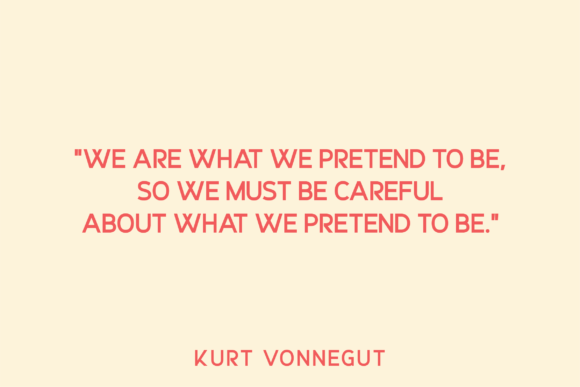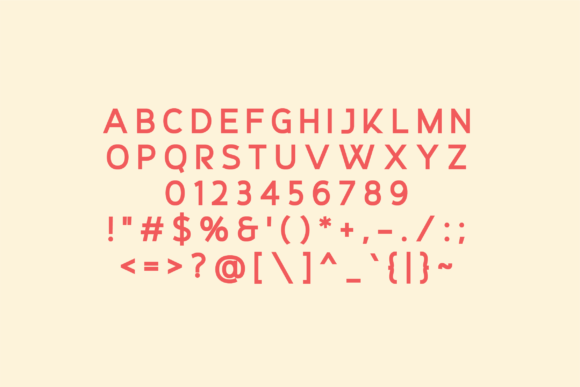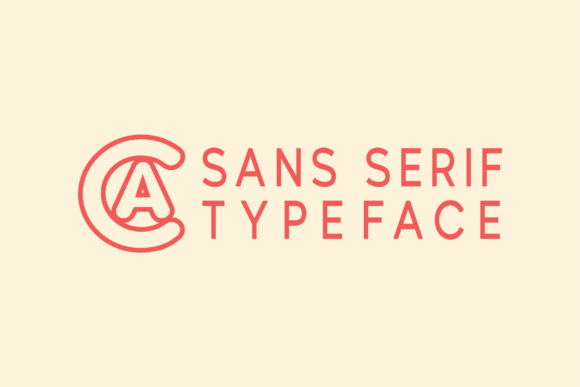
Introduction to Relevance Font
Have you ever found yourself staring at a blank page, trying to bring your creative idea to life? The perfect font can be the missing piece that takes your design from ordinary to extraordinary. For designers, the quest for the ideal font is a never-ending journey, and that’s where the Relevance Font comes in – a high-quality design resource that’s about to revolutionize the way you approach your creative projects.
As a versatile, modern, and classy sans serif font, Relevance Font is perfect for a wide range of applications, from logos and weddings to invitations and advertisements. With its transparent background, you can add it to your designs and watch how it elevates your work to the next level. And the best part? It’s available for free download, making it an invaluable resource for designers of all levels.
Key Features of Relevance Font
- High-quality, professional design for creative projects and presentations.
- Part of a comprehensive font family, offering a range of styles and weights to suit various design needs.
- Designed to be highly legible and versatile, making it suitable for both print and digital applications.
Honest Review: Relevance Font
I recently stumbled upon the Relevance Font, and I’m excited to share my thoughts with you. As a designer, I’m always on the lookout for high-quality design resources to elevate my creative projects.
- ✨ The font’s transparent background makes it incredibly versatile and easy to use on a variety of backgrounds.
- ✨ The font’s modern and sleek design makes it perfect for a wide range of creative projects, from business cards to websites.
- ⚠️ The font may not be suitable for projects that require a more traditional or classic look.
Overall, I’m impressed with the Relevance Font. It’s a high-quality design resource that’s perfect for designers looking to add a modern touch to their creative projects. While it may have some limitations, I believe the benefits far outweigh the drawbacks.
Tips for Getting the Most Out of Relevance Font
Experiment with different font sizes and styles to create a unique design. Use the font in combination with other design elements to create a visually appealing design. Don’t forget to adjust the font color and background to ensure maximum visibility.
Relevance Font is ideal for designing high-quality documents, presentations, and creative projects that require a touch of sophistication. Use the font for business reports, marketing materials, or personal projects that require a professional touch.
Alternatives to Relevance Font
Open Sans is a popular, high-quality sans-serif font suitable for a wide range of design projects. It features a clean and modern design, making it an ideal choice for digital interfaces and creative projects.
Use Open Sans when you need a versatile and highly legible font for your design. Compared to Relevance Font, Open Sans offers a more neutral aesthetic, but its wide range of weights and styles make it highly adaptable.
Alegreya
Alegreya is a high-quality serif font that exudes elegance and sophistication. Its unique design makes it perfect for creative projects that require a touch of sophistication and refinement.
Use Alegreya when you need a font that adds a sense of luxury and sophistication to your design. Compared to Relevance Font, Alegreya has a more traditional feel, but its modern twist makes it suitable for a wide range of design projects.